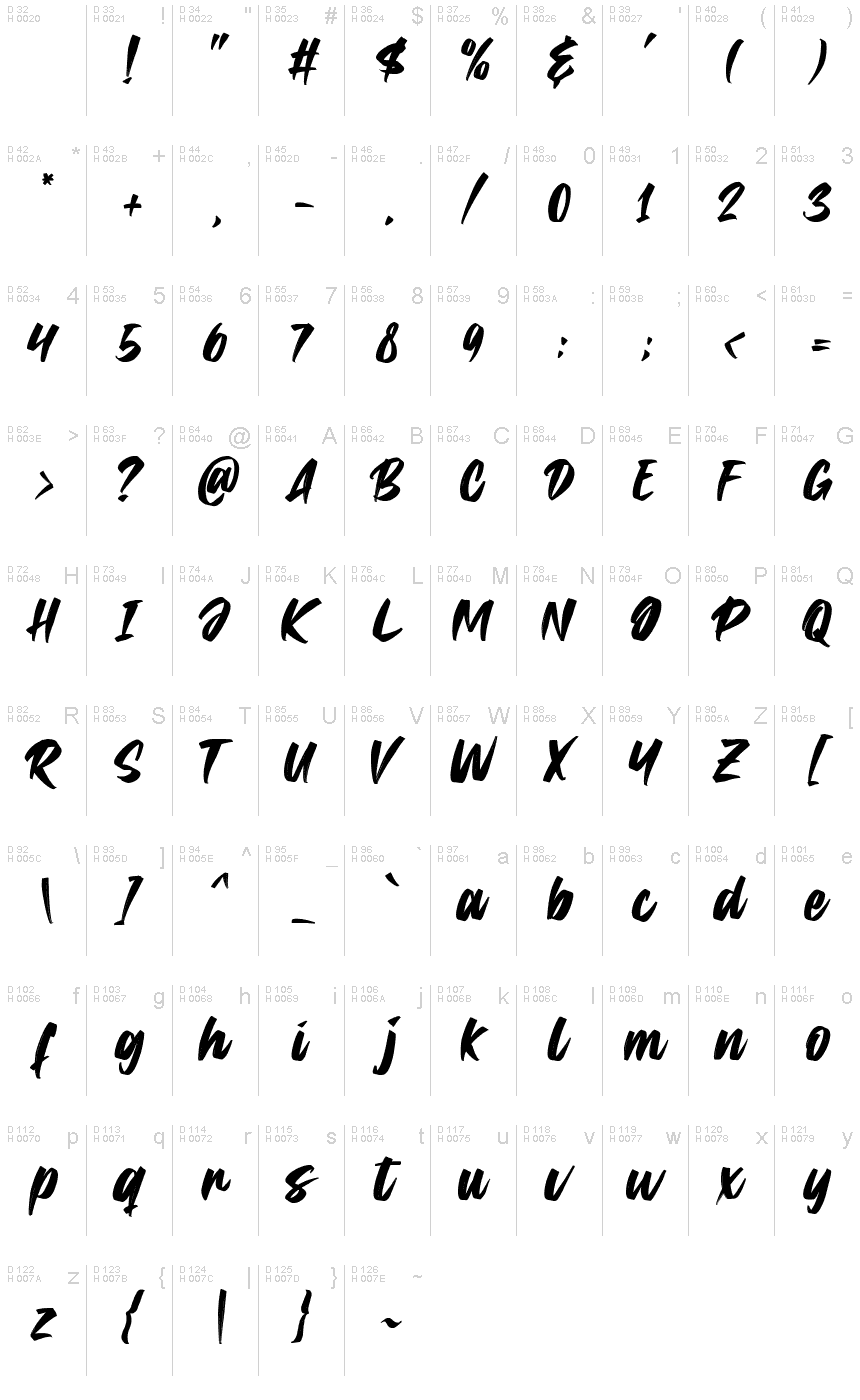
Take Back
Take Back by Kong Font is a bold brush font that demands attention. With its thick strokes and rough edges, it's perfect for creating eye-catching designs that are both edgy and stylish. Use Take Back for your next project to add a touch of rebellion and attitude. This semi-bold typeface is ideal for poster designs, apparel graphics, album covers, and more. Its width makes it great for headlines or large text blocks that need to be emphasized. Don't settle for an ordinary font - take back your design game with Take Back by Kong Font.